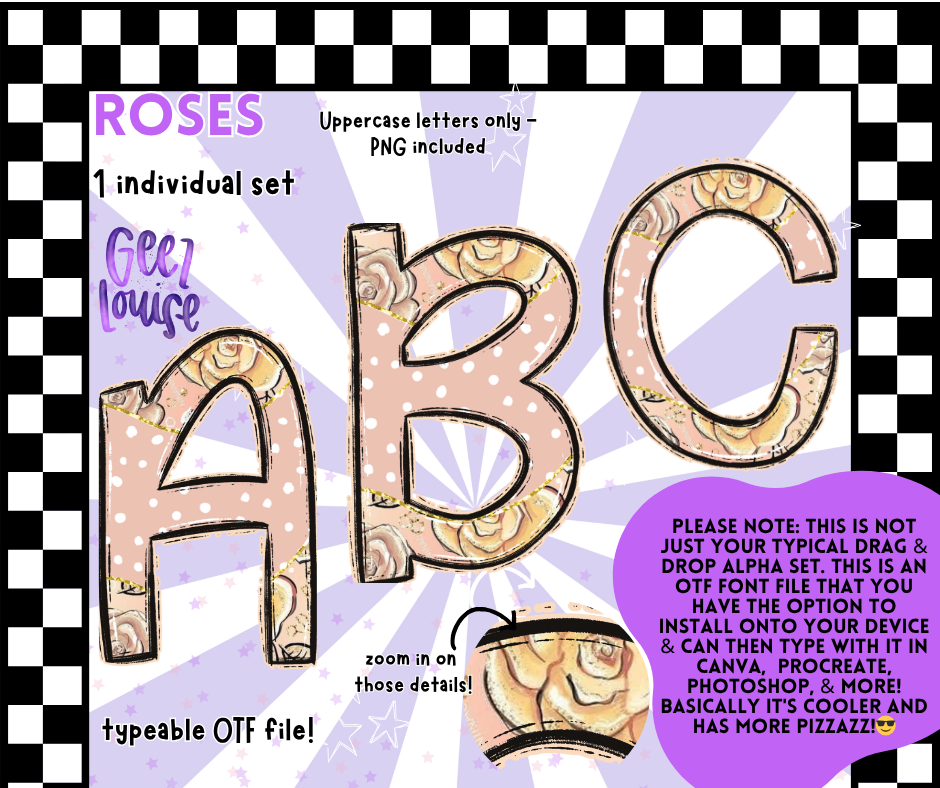
Not your grandma’s alphabet set. ROSES is a bold, blooming uppercase font that brings vintage charm and modern sass to your designs. Each letter is decked out in roses and polka dots, perfect for creators who crave a little extra pizzazz.
Full uppercase alphabet (A–Z)
Crisp, high-res details that pop at any size
💡 Why It Rocks:
This isn’t just a decorative alpha set—it’s a fully installable font file. That means you can type with it like any other font, but with way more flair. Whether you're designing t-shirts, stickers, social posts, or spellbinding invites, ROSES adds that “zoom in and gasp” kind of detail.
Made for the maximalists, the romantics, and the pixel-perfectionists. ROSES is here to make your words bloom.